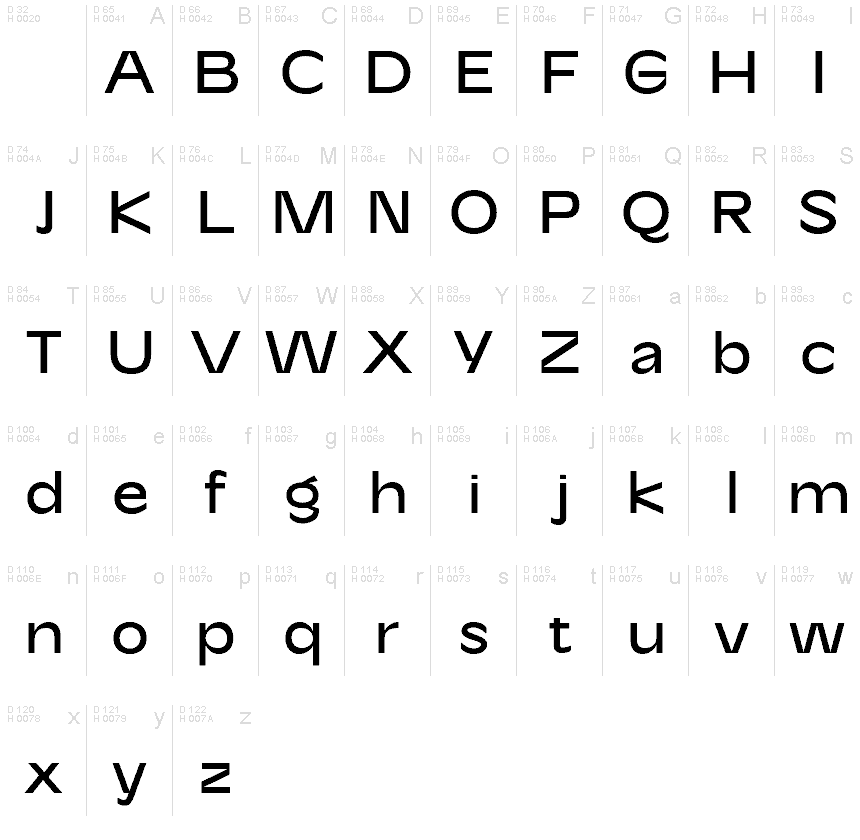
CS Brian Demo Regular
CS Brian font by Craft Supply Co. is an expanded sans serif design meant as an expression of minimalism and modernity. It combines geometric shapes with rounded corners to offer pleasant letterforms without sacrificing strictness and professionalism. The overall tone presented by this resource is clean, making it fit in anywhere among other different elements.
CS Brian is a free sans serif font that works on logos, web fonts, body texts, UX designs, apps, banners, advertisements, posters, and flyers for music events. Keep your editorial magazines looking nice using it in headings and paragraphs or organize school/college typography-based projects with it whenever possible!